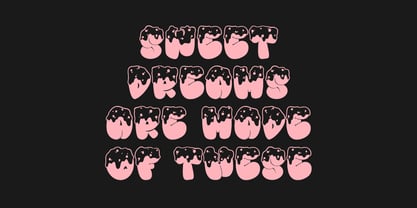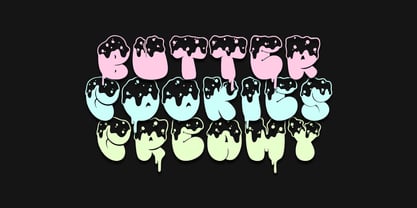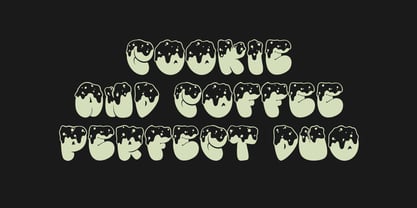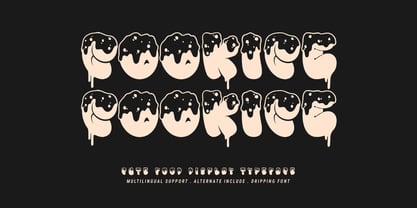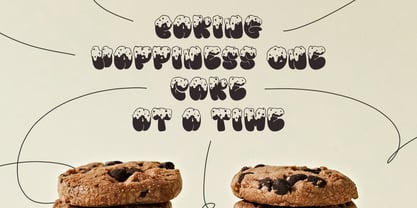
MC Cookice
by Maulana Creative
The MC Cookice Font Family was designed by Gilang Maulana and published by Maulana Creative. MC Cookice contains 1 styles. More about this family
Unleash your inner baker and sweeten up your designs with Cookice, the deliciously cute and quirky display font that looks good enough to eat. Inspired by the irresistible charm of freshly baked cookies, melted frosting, and sweet treats, Cookice brings a playful, bubbly, and slightly messy vibe to any project. Each letter is crafted to look like a plump, round cookie or cake, dripping with a delectable layer of frosting or chocolate. The alternating texture with sprinkles, drips, and a rounded, soft silhouette makes this font a standout choice for anyone looking to convey fun, indulgence, and sugary goodness.
Designers: Gilang Maulana
Foundry: Maulana Creative